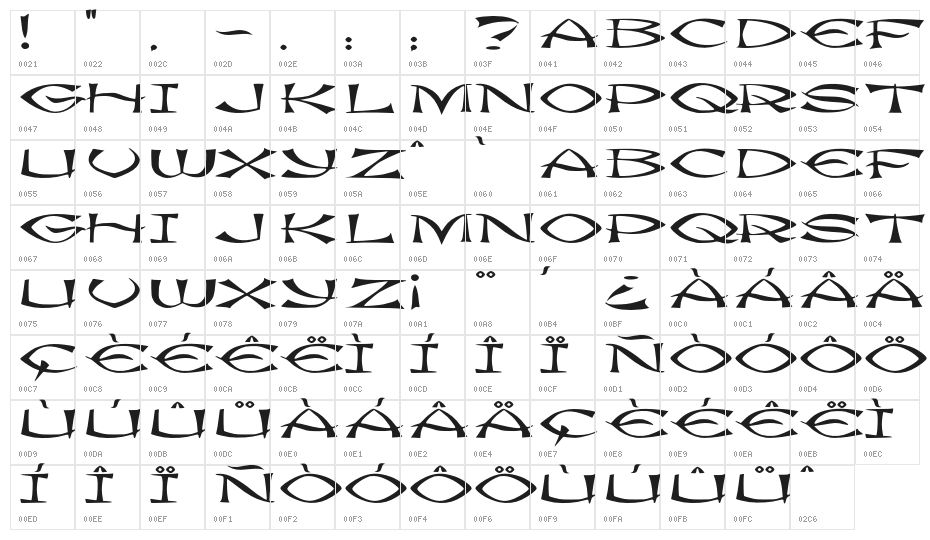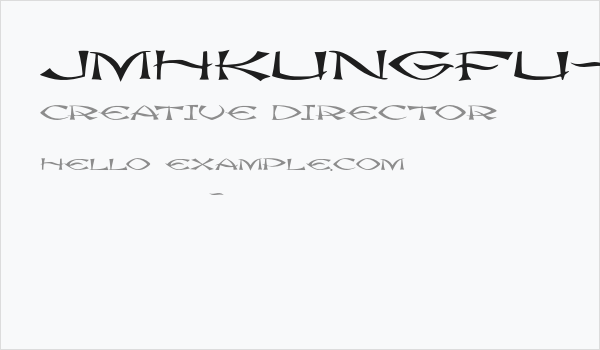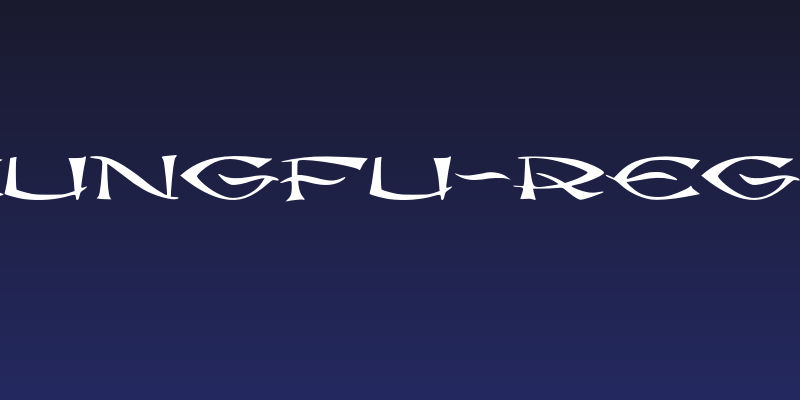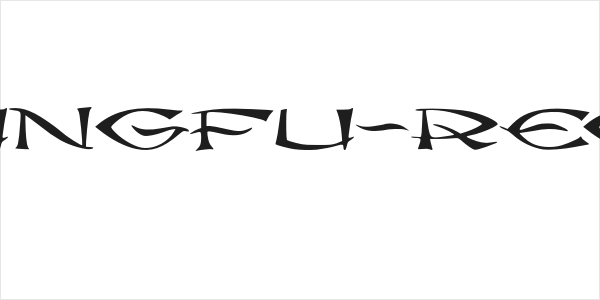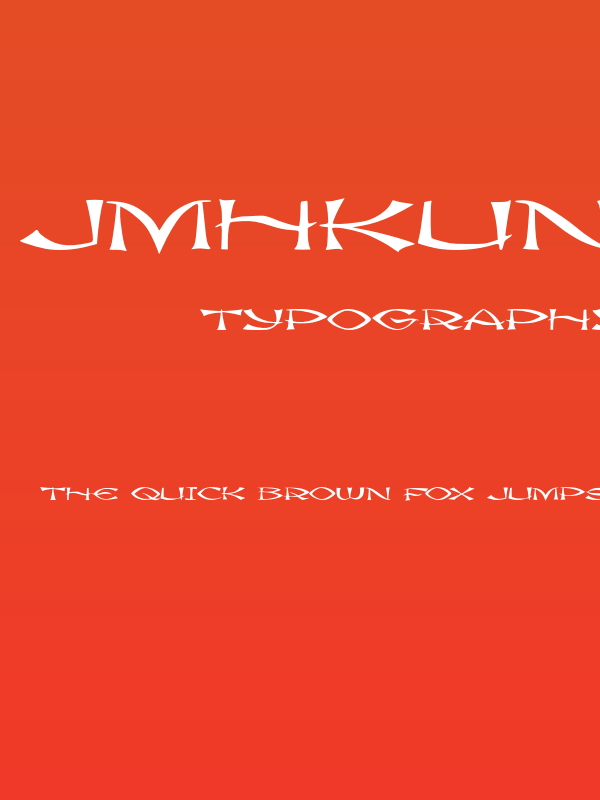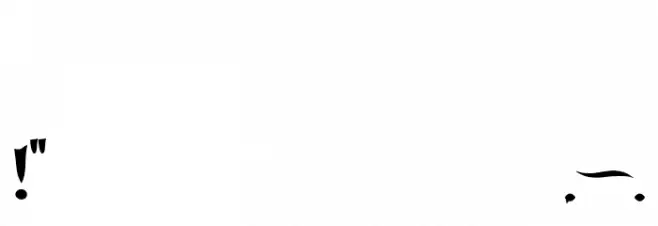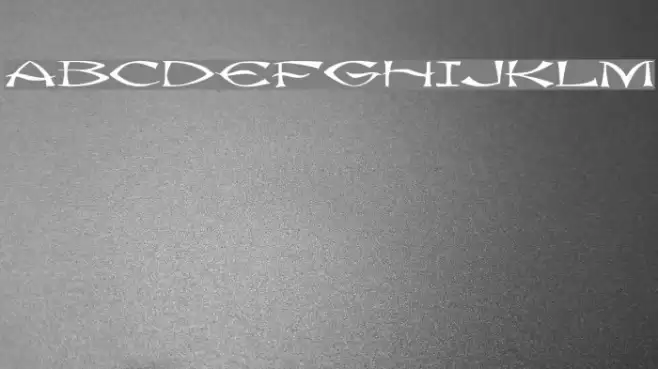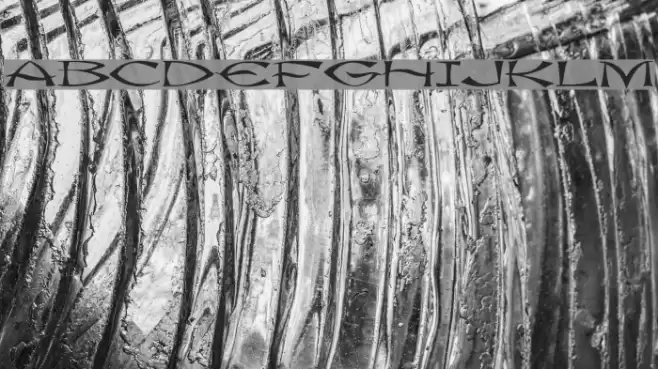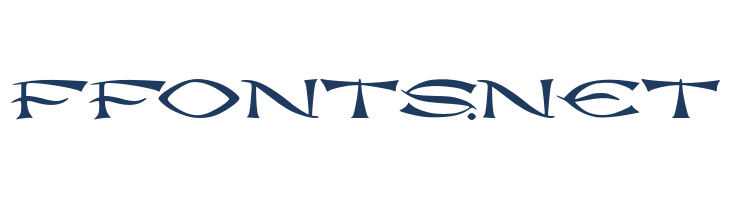
JMHkungfu-Regular Font
This font features a dynamic and energetic style, reminiscent of martial arts movements. The characters are designed with sharp, angular strokes and a sense of motion, giving them a unique and striking appearance. The uppercase and lowercase letters maintain a consistent style, with exaggerated serifs and pointed edges that suggest speed and agility. The numbers and special characters follow the same design principles, ensuring a cohesive look across all glyphs. This font's distinctive style makes it stand out, ideal for projects that require a bold and adventurous aesthetic.